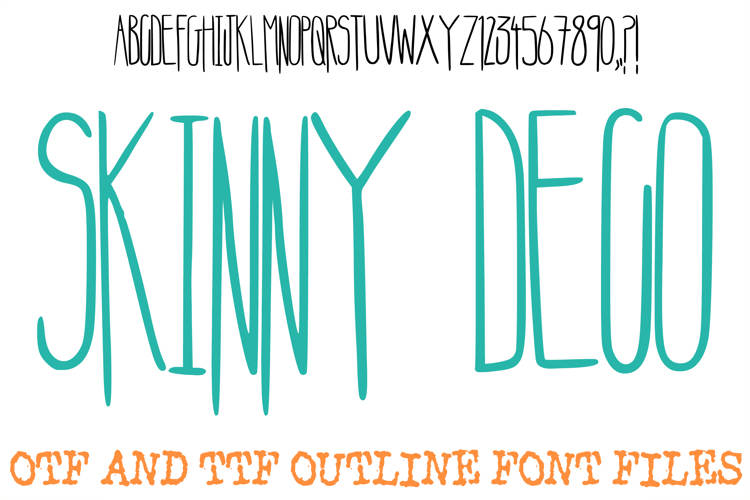
The Skinny Deco Font is an ultra-tall, condensed display typeface that effortlessly blends retro Art Deco geometry with a relaxed, modern hand-drawn charm. Characterized by its dramatically elongated vertical strokes and tight, narrow profiles, this font delivers an elegant yet whimsical presence to any layout. It is a premier choice for designers working on boutique packaging, trendy social media graphics, minimalist wedding invitations, chic menu headings, and creative home decor projects.
The design features a playful variation in stroke baseline and height, giving words an organic, rhythmic bounce while remaining incredibly sleek and sophisticated. Its fine, uniform line weight ensures a clean, contemporary look that fits perfectly into modern bohemian or mid-century aesthetics. Whether you are creating high-impact editorial titles, delicate product labels, or stylish typography prints, this typeface brings an airy, sophisticated flair to your visual toolkit.
Why Your Designs Will Stand Out
Ultra-Tall Condensed Architecture: The heavily elongated, narrow letterforms optimize horizontal space while creating a striking, high-fashion vertical impact.
Modern Bohemian Elegance: A perfect fusion of structured Art Deco layouts and breezy, hand-drawn linework that adds an instant touch of class.
Playful Rhythmic Bounce: Slight architectural irregularities and organic stroke extensions reject rigid geometric uniformity for a character-filled, artisan feel.
Clean Minimalist Silhouette: The crisp, monoline structure ensures excellent legibility and a contemporary aesthetic across print and digital media.